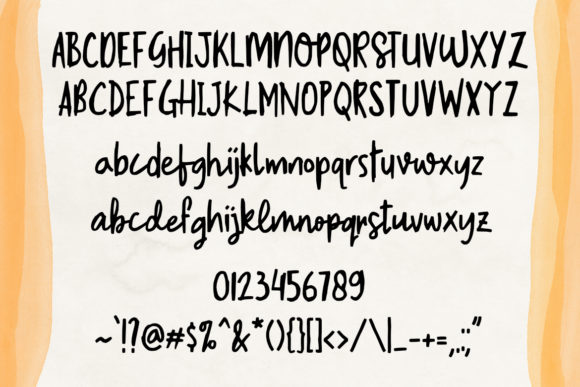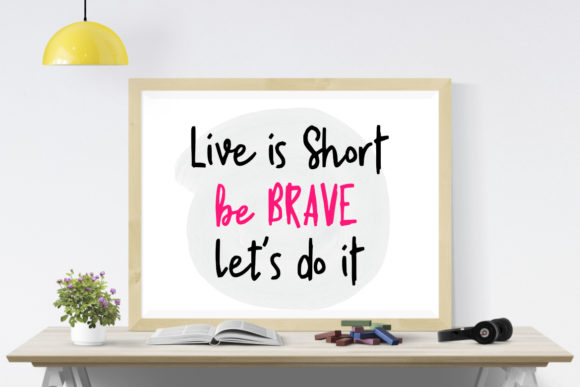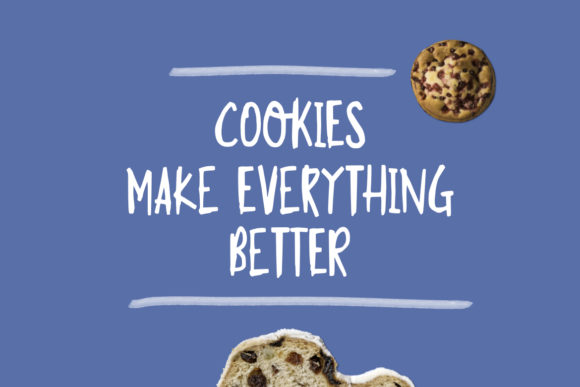
South River Font
About South River Font
South River is a playful handwritten font, full of charm and personality. Make your next project stand out with this lovely font.
It’s perfect for logos, quotes, wedding designs, album covers, business cards, clothing, magazine covers, posters, and more!